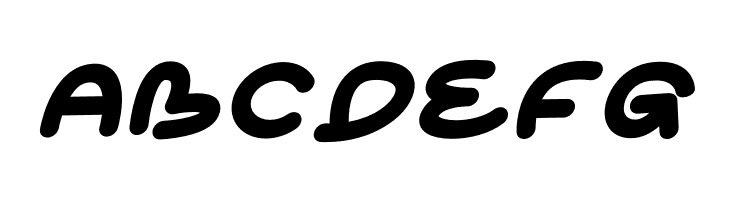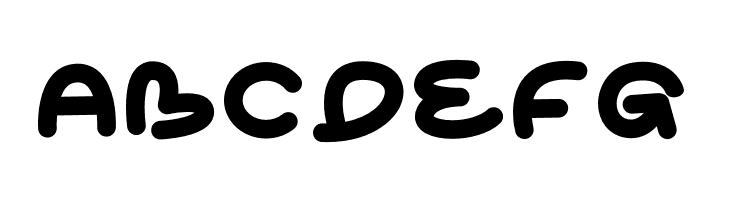
• Cokobar Italic
A playful, bold, and rounded italic font with a friendly appearance.
• Cokobar
A playful, rounded font with bold, smooth curves and a friendly appearance.